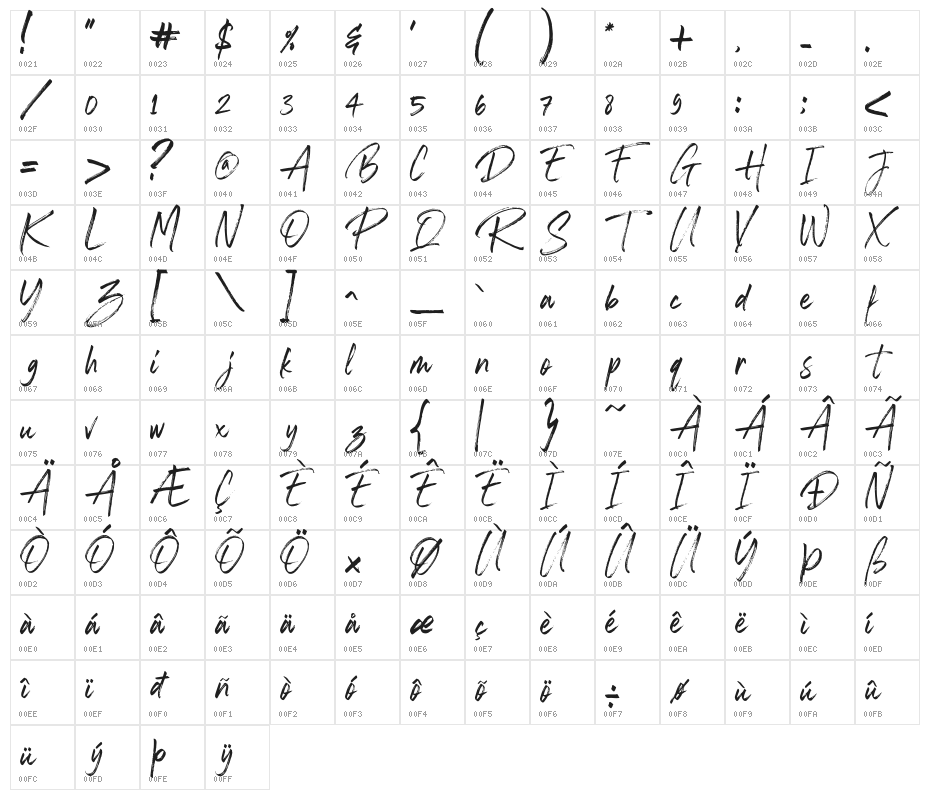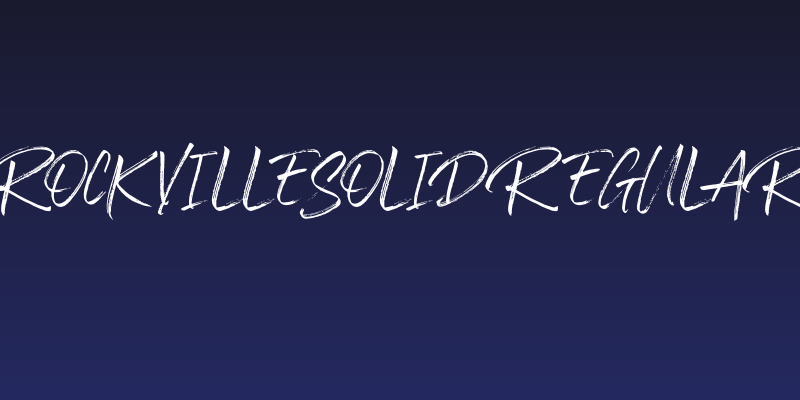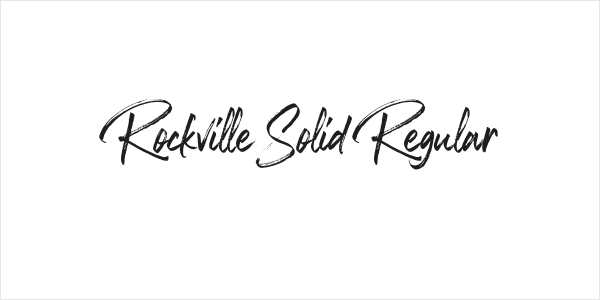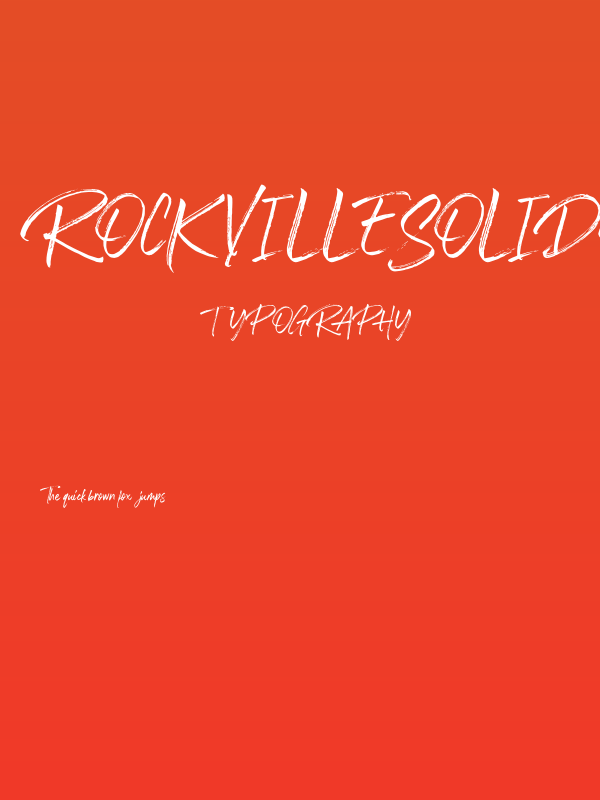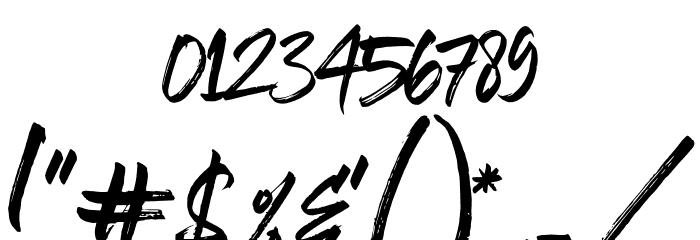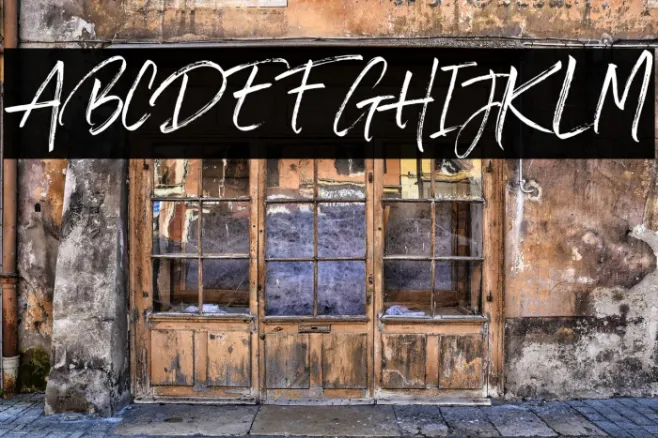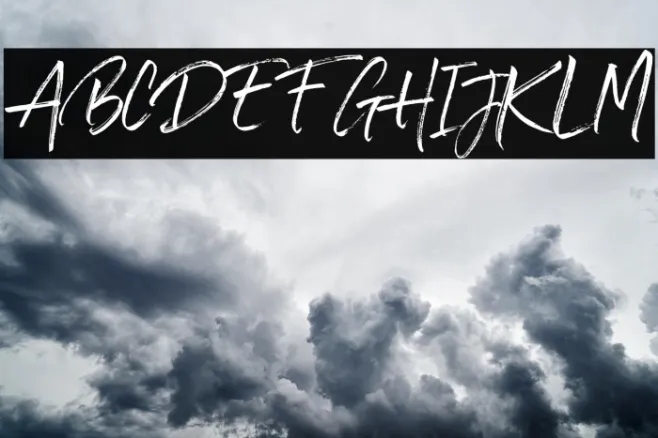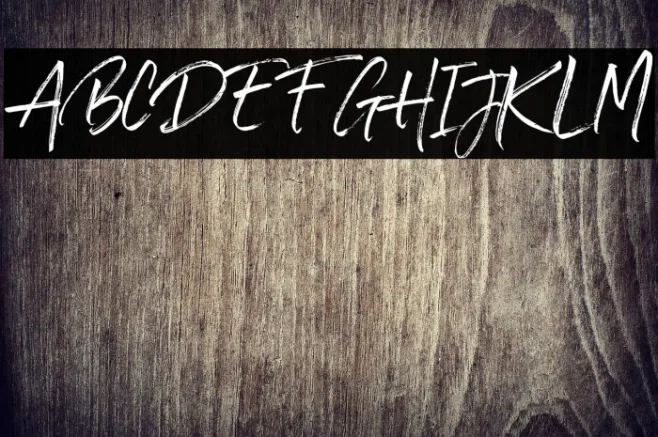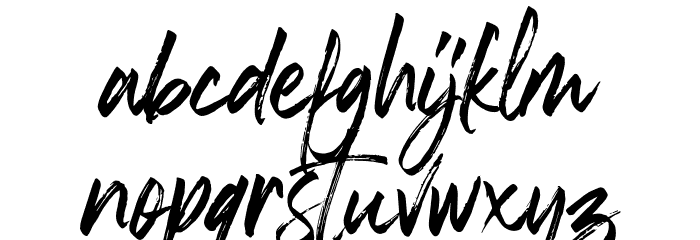
RockvilleSolidRegular Font
RockvilleSolidRegular Description
This font features a dynamic and expressive handwritten style, characterized by its bold and energetic strokes. The letters exhibit a natural flow with varying thickness, giving it a lively and spontaneous appearance. The uppercase and lowercase letters maintain a consistent style, with some letters having unique flourishes that add to its artistic flair. The numbers and special characters complement the overall design, making it versatile for creative projects. The font's brush-like texture adds depth and personality, making it ideal for designs that require a personal touch.
| Proposed Projects | Ideal for branding, posters, invitations, and any project that requires a personal, artistic touch. |